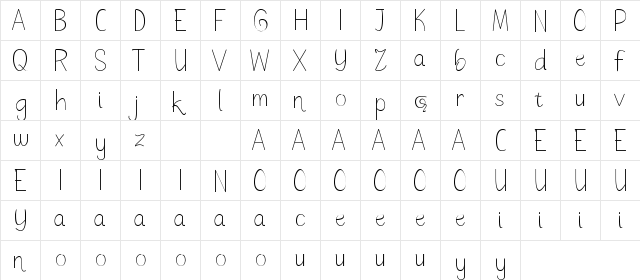
Sketchy Expectation Regular
| Designer | Zkhai Creative |
Design Context for Sketchy Expectation Typeface
Sketchy Expectation offers clean, dependable letterforms without strong stylistic allegiance, making it a practical choice for designers who need flexibility.